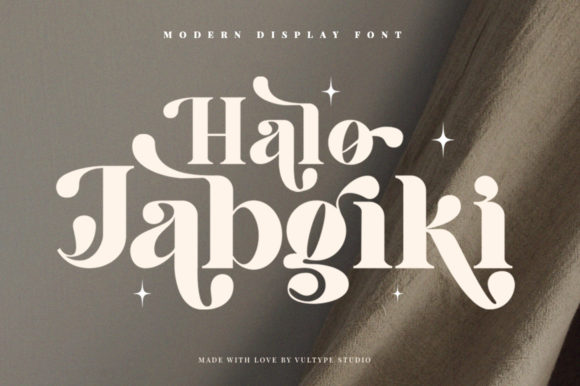
Halo Jabgiki Font
Halo Jabgiki is a trendy and chic serif font. This font is PUA encoded which means you can access all of the glyphs and swashes with ease!